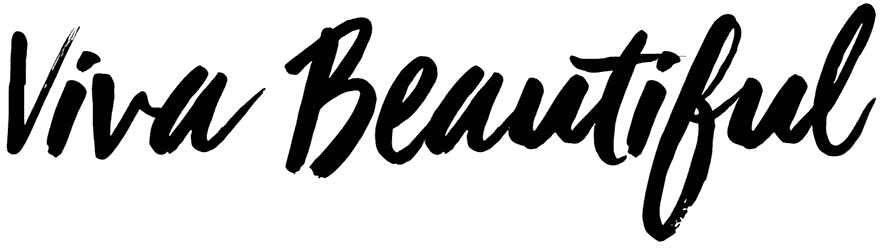
Viva Beautiful Font
For any type of design, you can count on the beauty and charm of manuscript words. Viva Beautiful is a brush font with a modern and elegant vibe, but it doesn’t offer numbers and punctuation in its own form. As a wedding font, Viva Beautiful is an apt pick to show off your creativity in designs such as business cards, social media posts, postcards, etc.